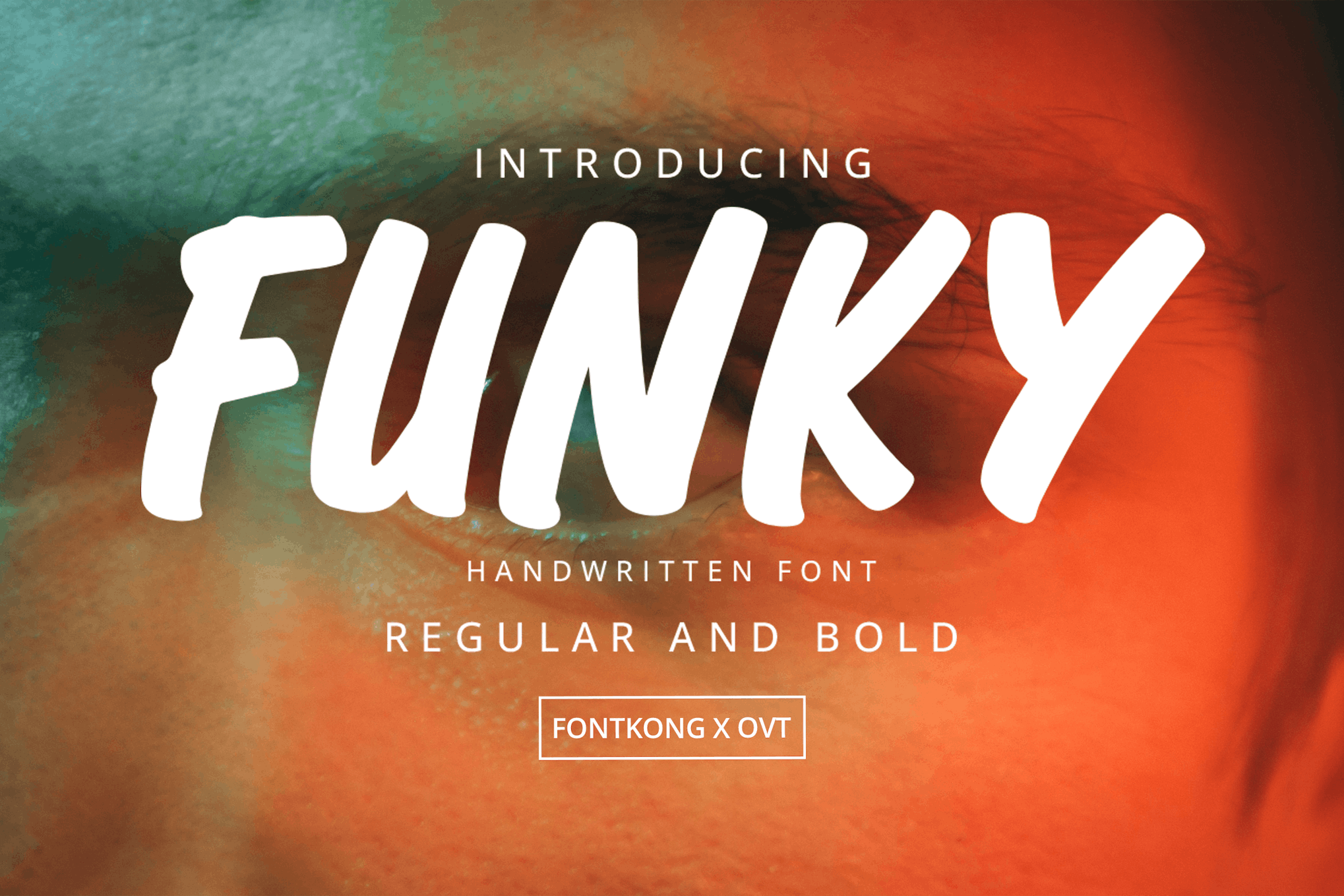
Funky - Handwritten Font
Funky - Handwritten Font Free Download is an energetic and charming typeface that brings a playful, hand-drawn personality to your designs. For commercial use, you must purchase this font, but you can download it for free for testing purposes. This versatile font is perfect for a wide range of creative projects, including children’s book covers, greeting cards, social media graphics, t-shirt designs, and creative branding. What makes this font so exciting is its genuine, quirky style and slightly imperfect characters, which give every design a unique, fun-loving feel that is both personal and unforgettable. The Funky font family includes a range of styles, such as a Regular version, a more expressive Bold version, and a collection of dynamic swashes and alternates, providing you with a complete and flexible design solution.
This isn’t just a font; it’s an adventure in typography. The design of Funky - Handwritten Font is inspired by a blend of authentic hand-lettering and a carefree, spontaneous aesthetic. Its distinctive, bouncy letterforms and playful presence ensure that your headlines and titles will be both memorable and highly engaging. Whether you’re a designer crafting a brand identity that needs to feel approachable and fun, a creative working on a project that adds a touch of whimsical charm, or a business looking for a font that conveys a sense of youthful energy, this typeface provides the perfect foundation. The hand-drawn aesthetic adds a layer of warmth and humanity that makes your work feel real and inviting.
The versatility of the Funky font family is one of its greatest strengths. You can use the regular weight for a soft, friendly feel and the bold weight for headlines that stand out with a confident, personal touch. The included swashes and alternates allow you to customize your text and create unique typographic compositions that feel bespoke and original. This flexibility makes it an invaluable asset for designers who need to create custom content that feels both contemporary and genuine. It's a font that works hard, delivering a look that is both stylish and full of character, ensuring your designs always make a memorable impression.